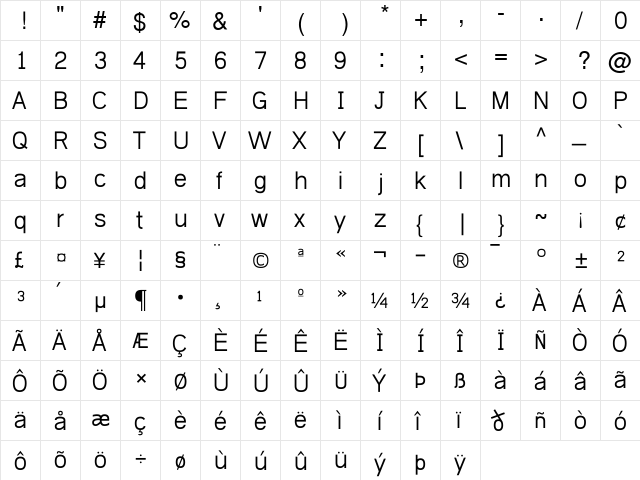
Khmer OS Muol Pali Regular
| Foundry | Danh Hong |
| Designer | Danh Hong - 2007 |
Design Context for Khmer OS Muol Pali Typeface
Khmer OS Muol Pali is a composed and adaptable typeface that performs quietly and consistently across a wide range of design contexts.